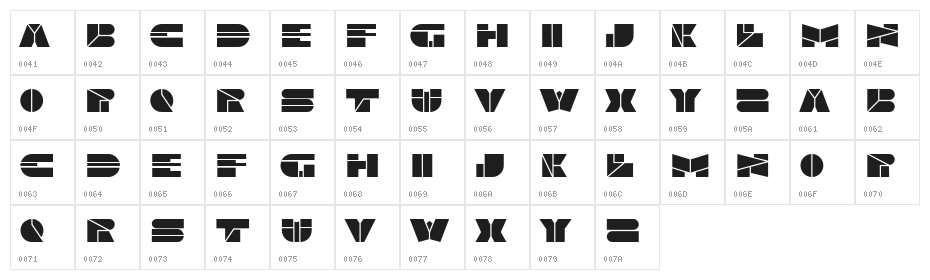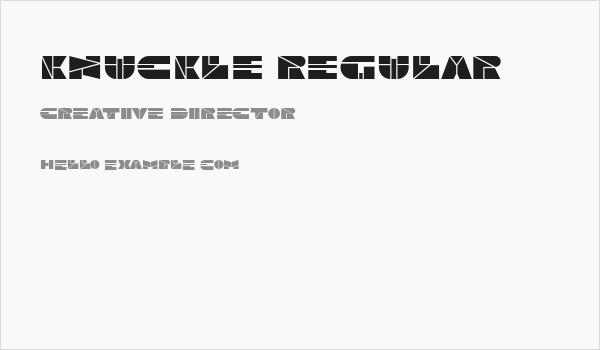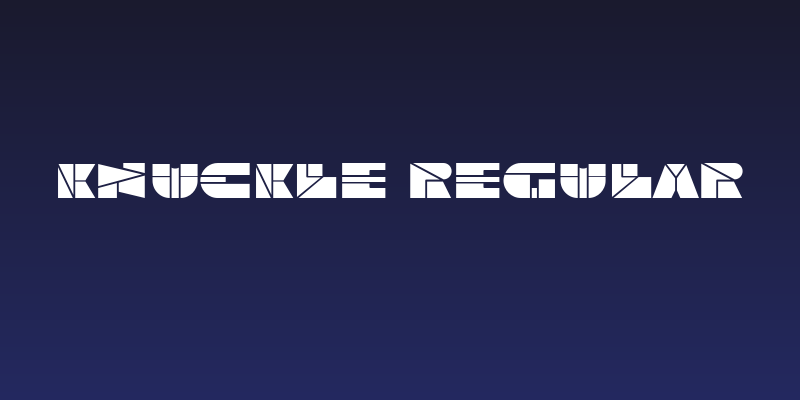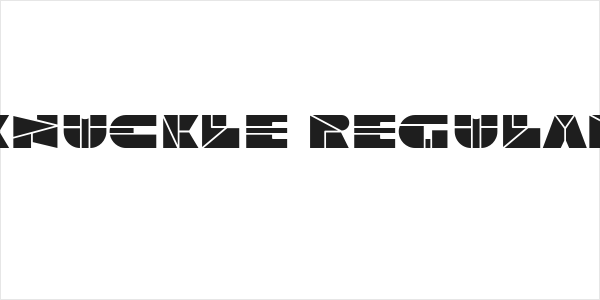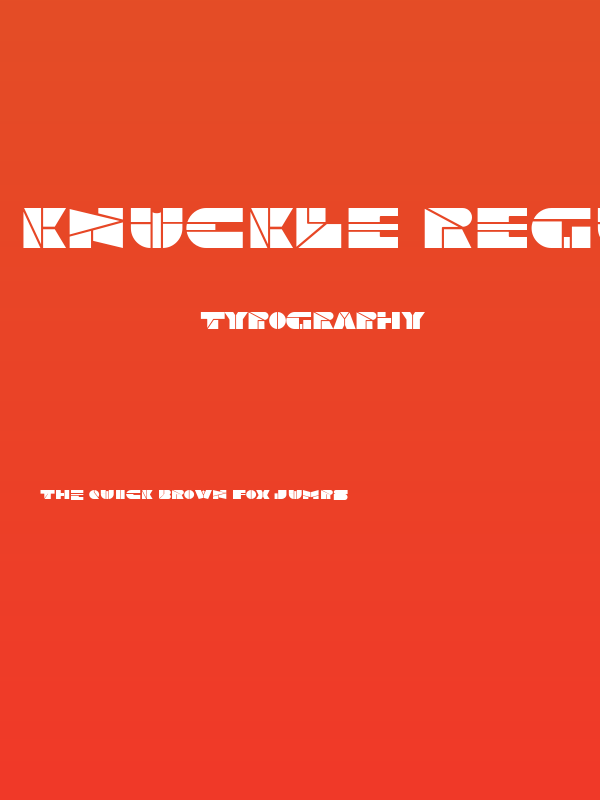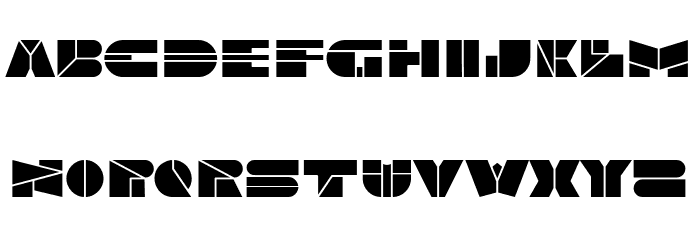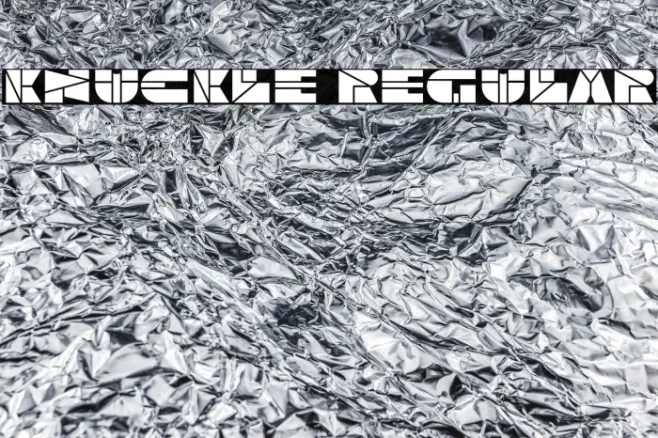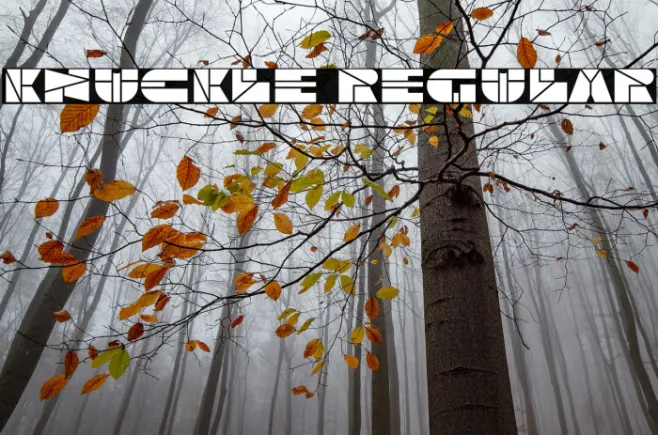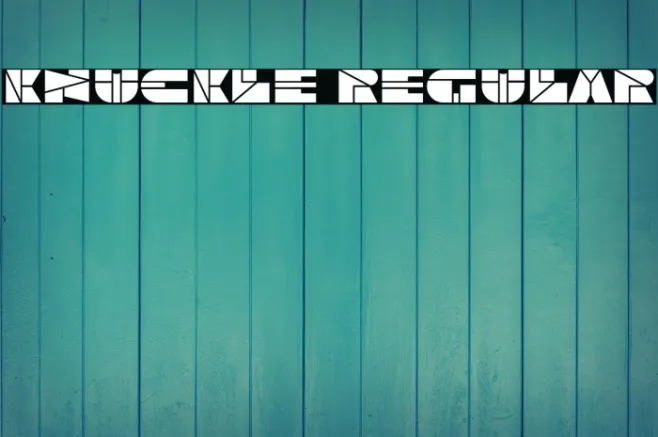
Knuckle Regular Font
Knuckle Regular Description
This font features a bold, geometric design with a distinct, futuristic aesthetic. Each character is constructed using thick, angular shapes that create a sense of strength and modernity. The uppercase letters are particularly striking, with a blocky appearance that emphasizes their boldness. The lowercase letters maintain the same geometric style, ensuring consistency across the typeface. The numbers and special characters are equally bold and angular, making them stand out. This font's unique style makes it ideal for projects that require a modern and impactful look.